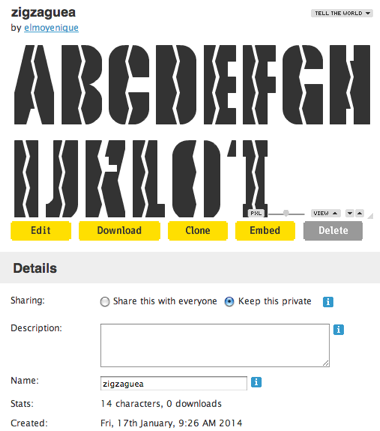
Hey! I was working in a similar idea too! 10/10, of course!
Nice work :)
@elmoyenique: Wow, a lot of similarities here, but zigzague also has its own distinct character. Please complete your wonderful work in progress.